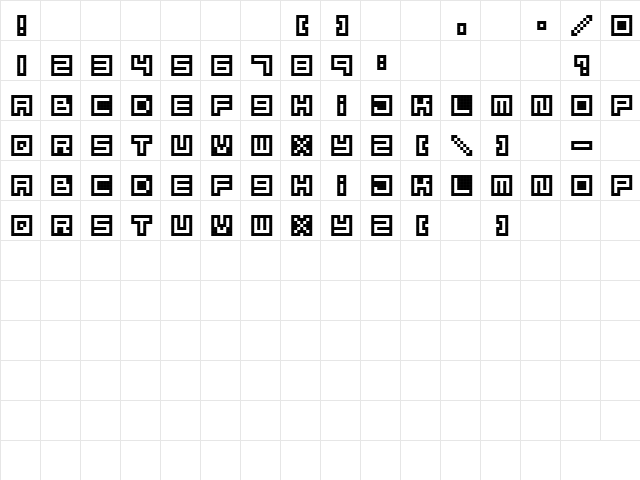
MizuFontAlphabet Regular
Foundry: The Risen Realm Studios
Designer: Mizu
Design Context for MizuFontAlphabet
MizuFontAlphabet is a composed and adaptable typeface that performs quietly and consistently across a wide range of design contexts.
Pro Tip: Use MizuFontAlphabet in both headline and body roles to test its range before committing to a single application.
Who designed the MizuFontAlphabet Regular font?